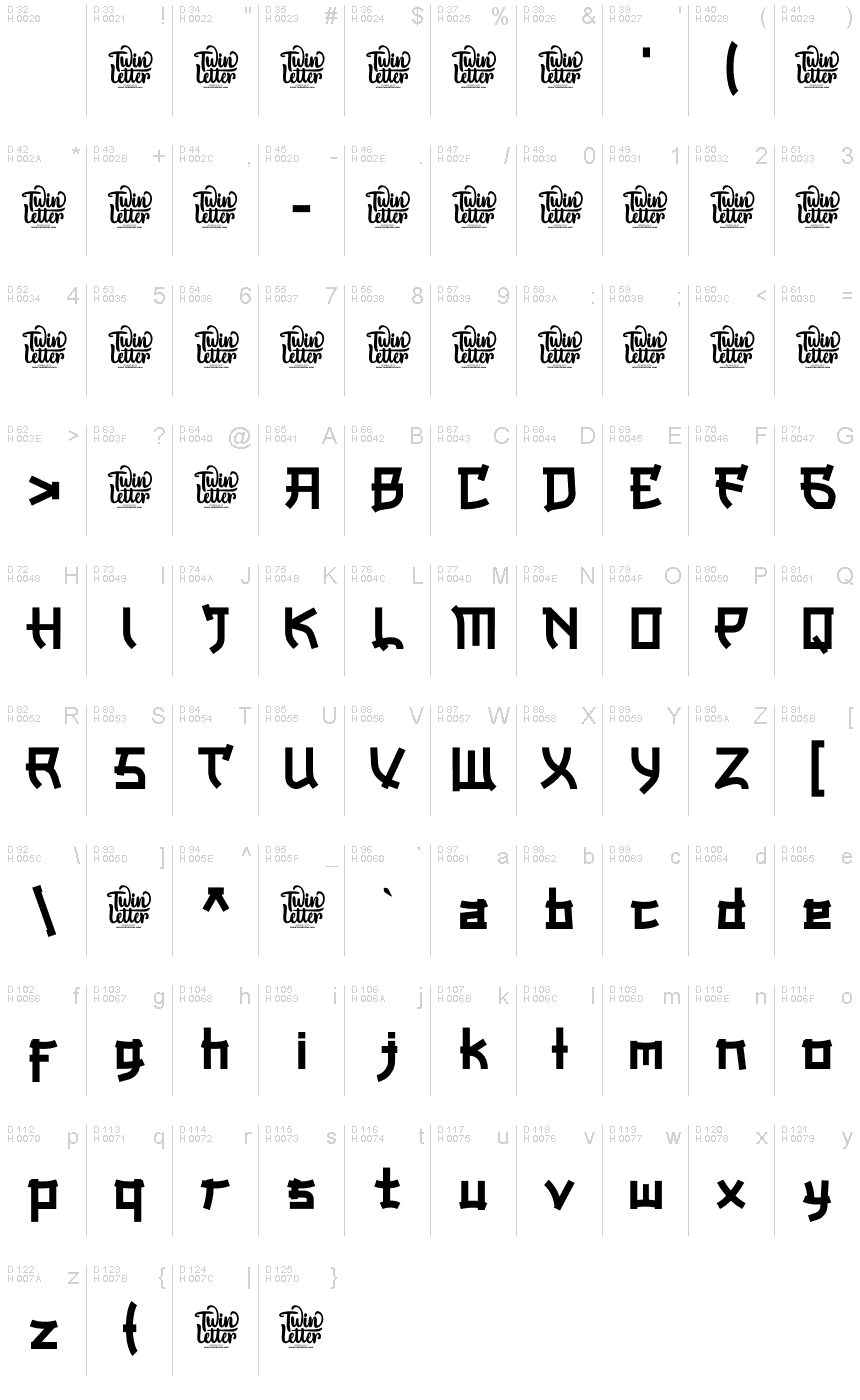
ONARI Personal Use
ONARI, the stunning creation of twinletter, is a foreign font type that boasts a jaw-dropping Japanese style. Its semi-expanded width beautifully accentuates every character and makes it an ideal choice for projects that require a unique touch. The semi-bold font is perfect for designing eye-catching headlines on websites or social media platforms. ONARI's intricate details and elegant curves make it suitable for creating logos, branding materials, or business cards. Additionally, its distinctive style can elevate any printed material such as magazines or books to the next level. With ONARI, there are endless possibilities to explore and create captivating designs that stand out from the crowd!